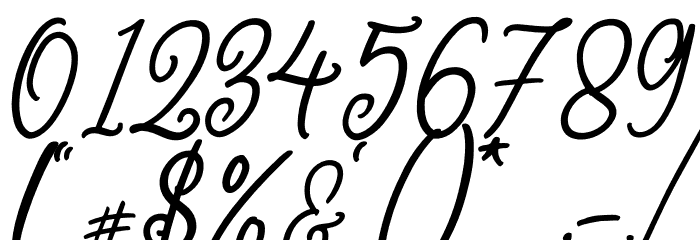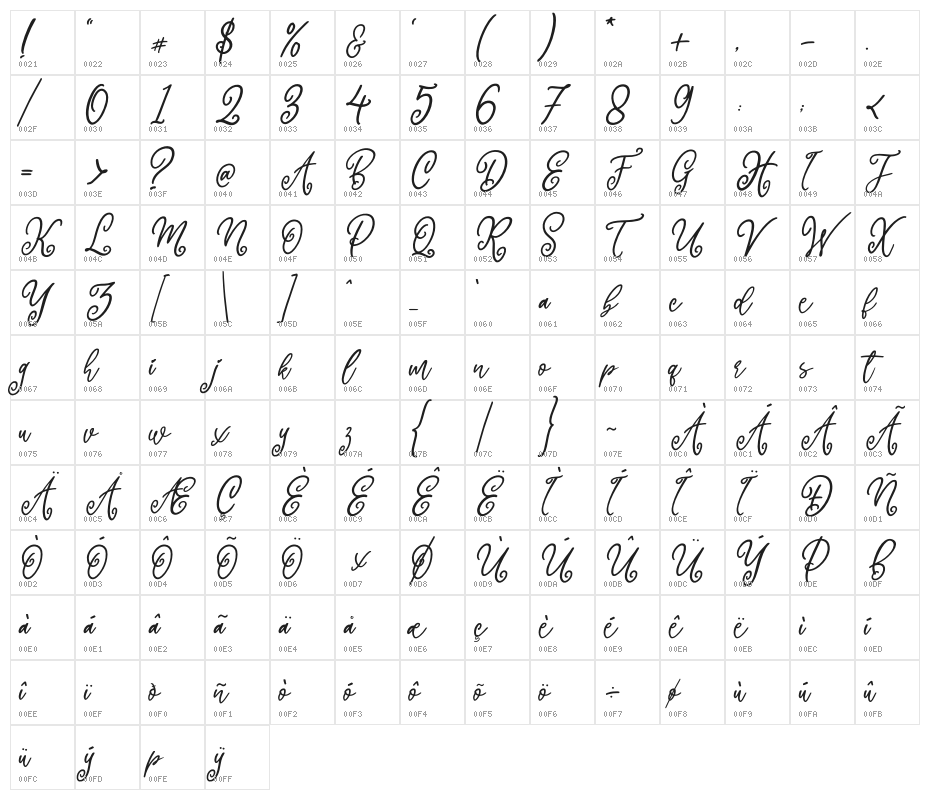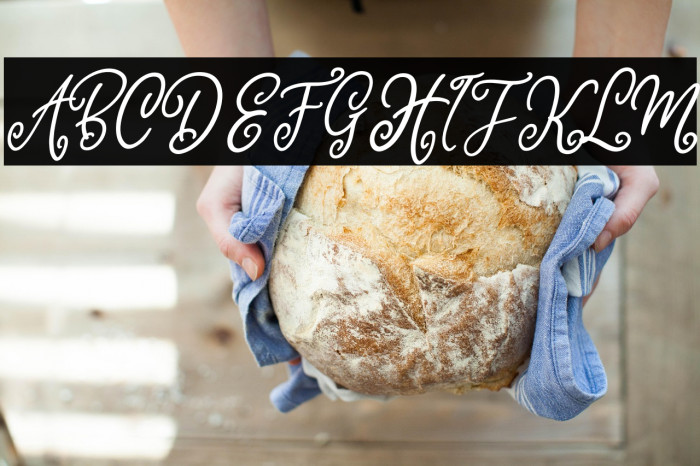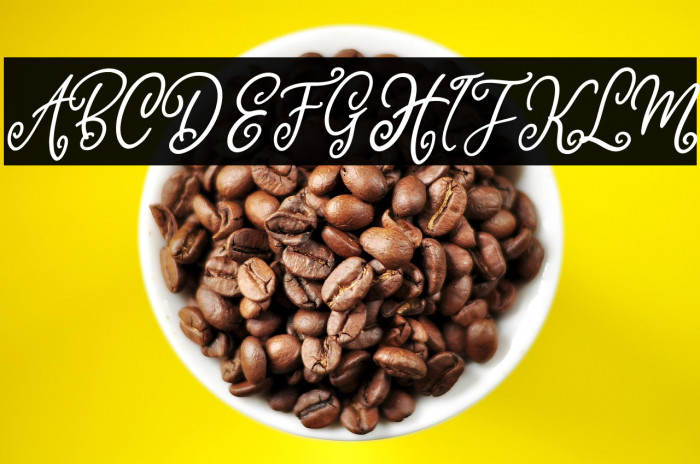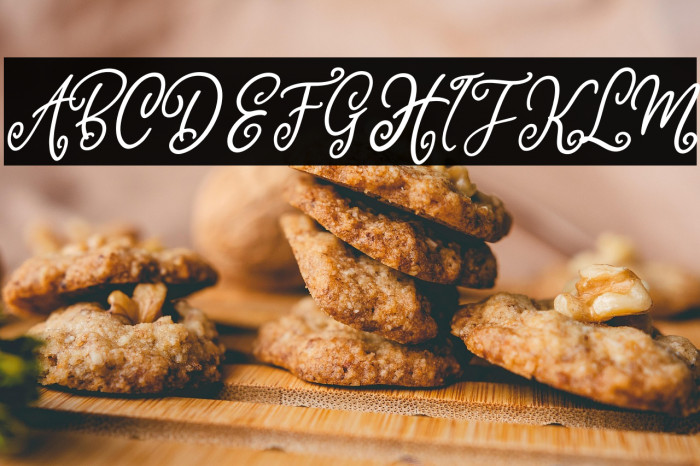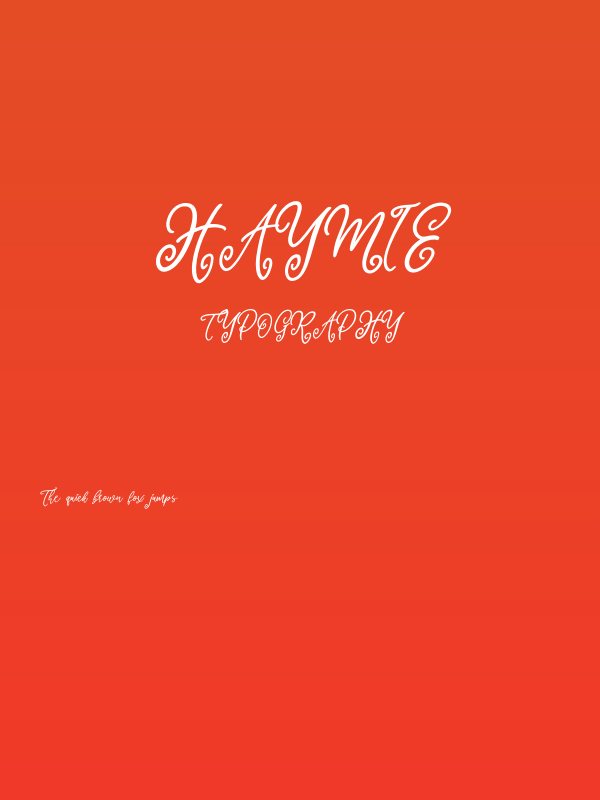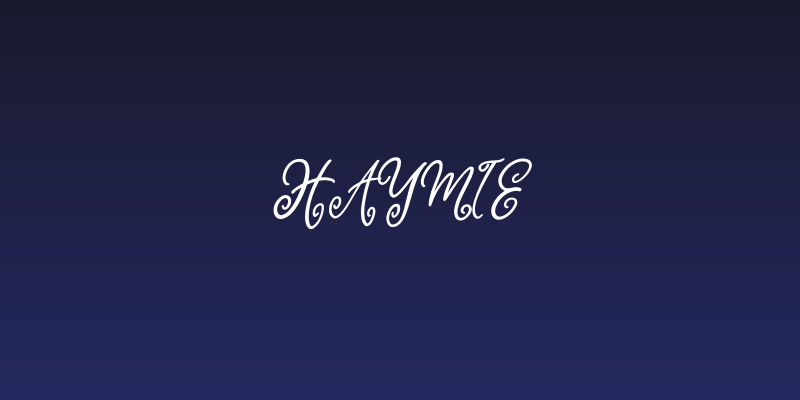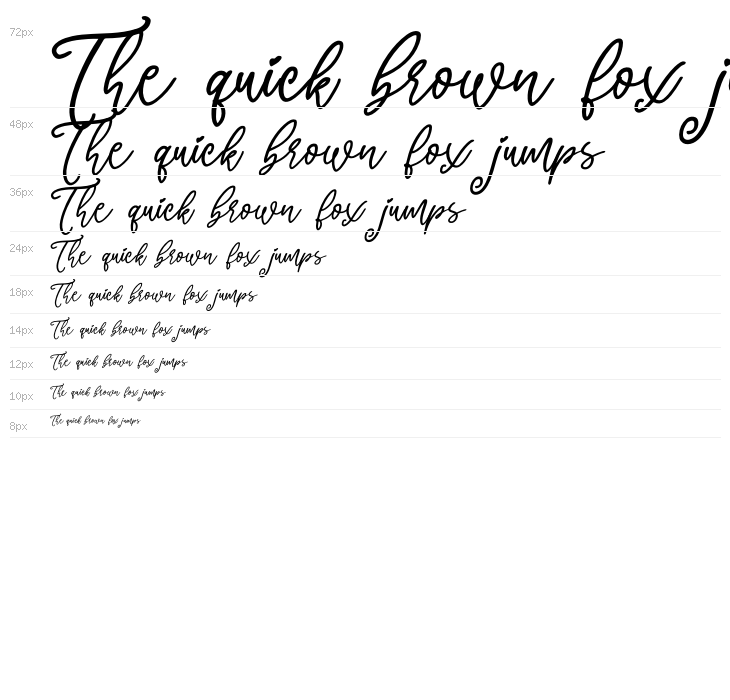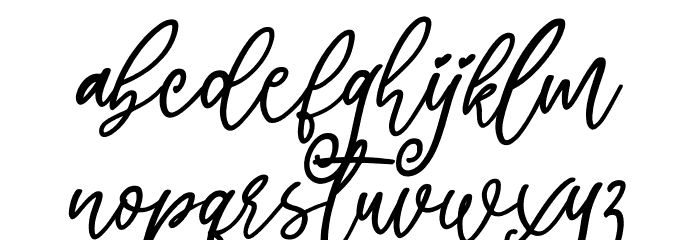
Haymie Font
Haymie Description
This font features an elegant and flowing script style, characterized by its smooth, cursive letterforms. The uppercase letters are ornate with intricate loops and swashes, creating a sense of sophistication and grace. The lowercase letters maintain a consistent flow, enhancing readability while retaining an artistic flair. Numbers and special characters are designed to complement the overall aesthetic, with a playful yet refined appearance. This font is ideal for projects that require a touch of elegance and creativity, such as wedding invitations, branding, and decorative headings.